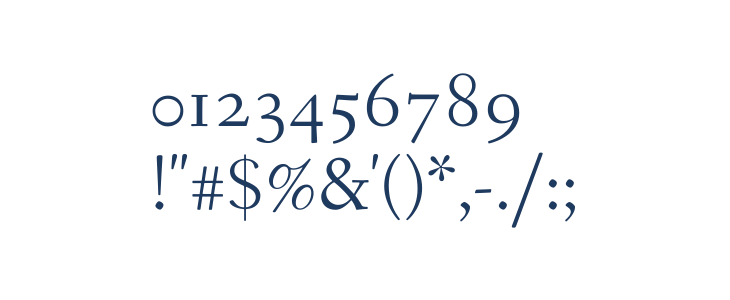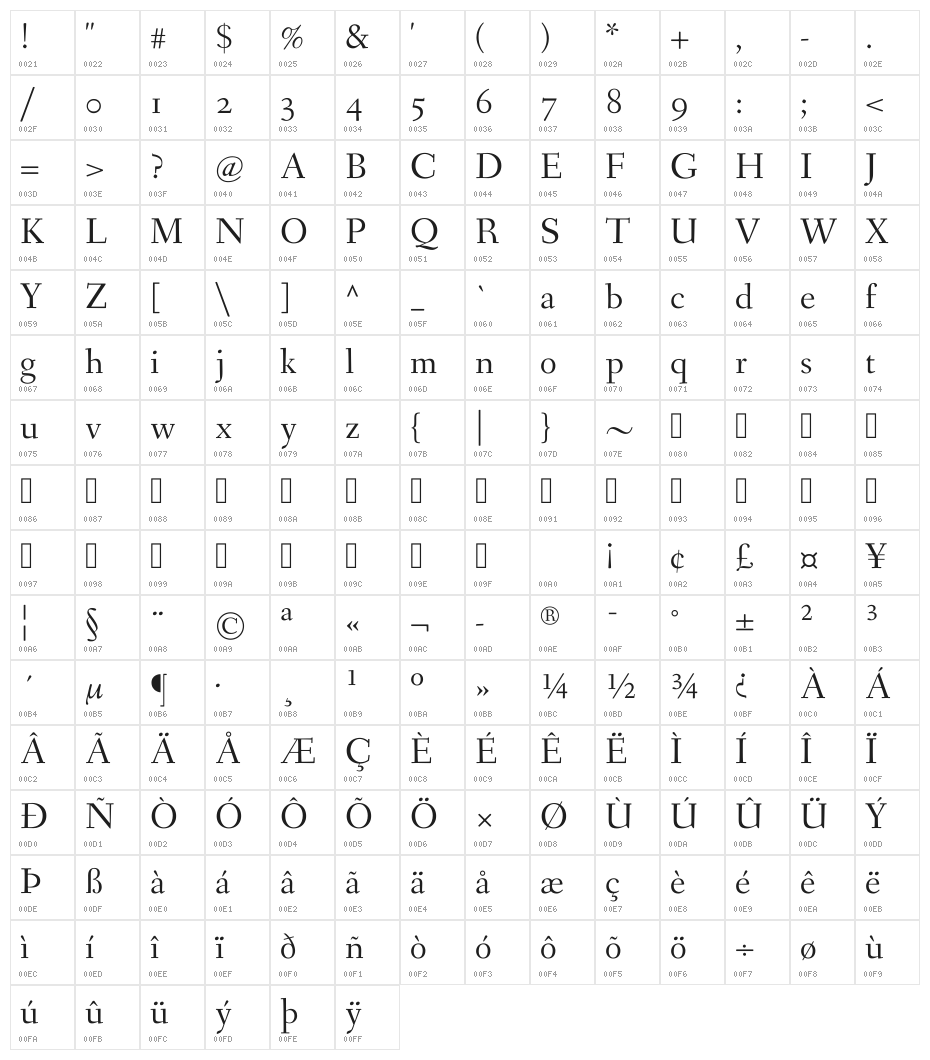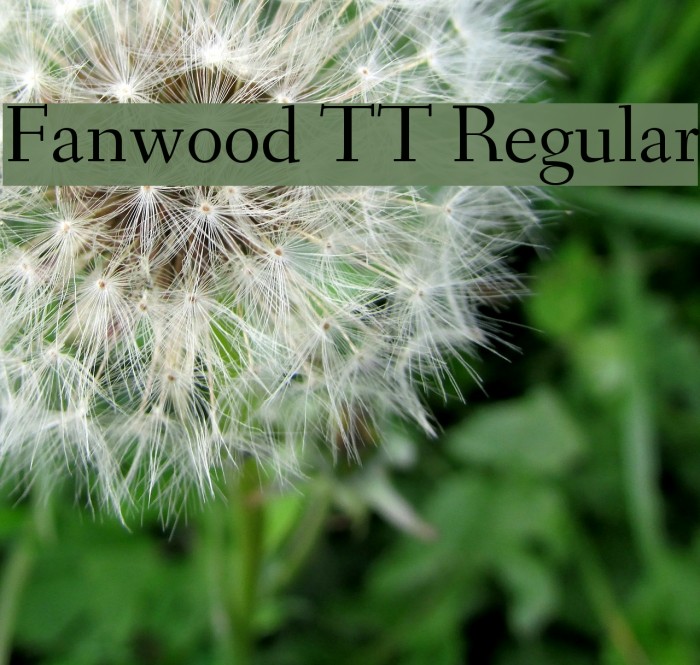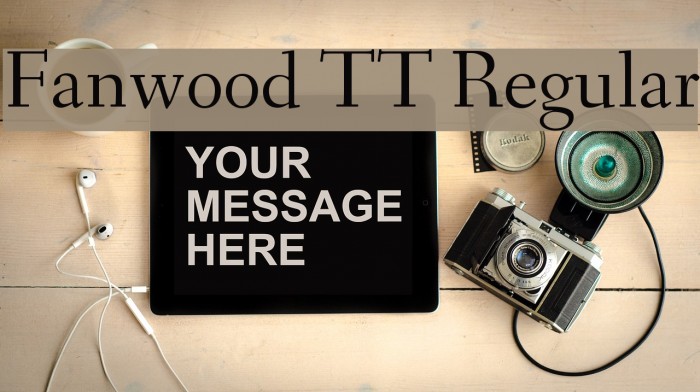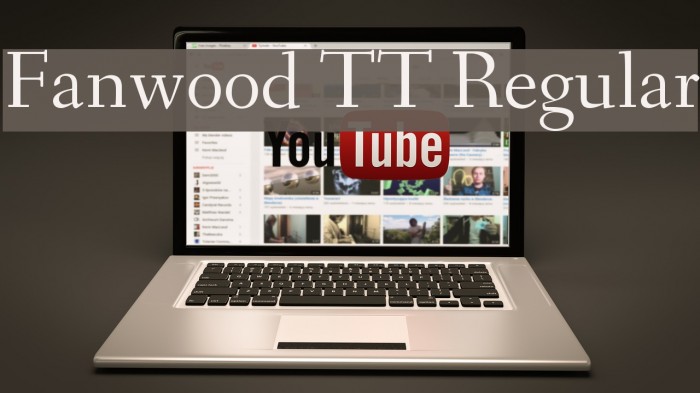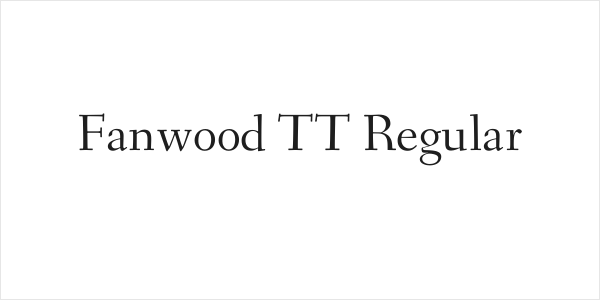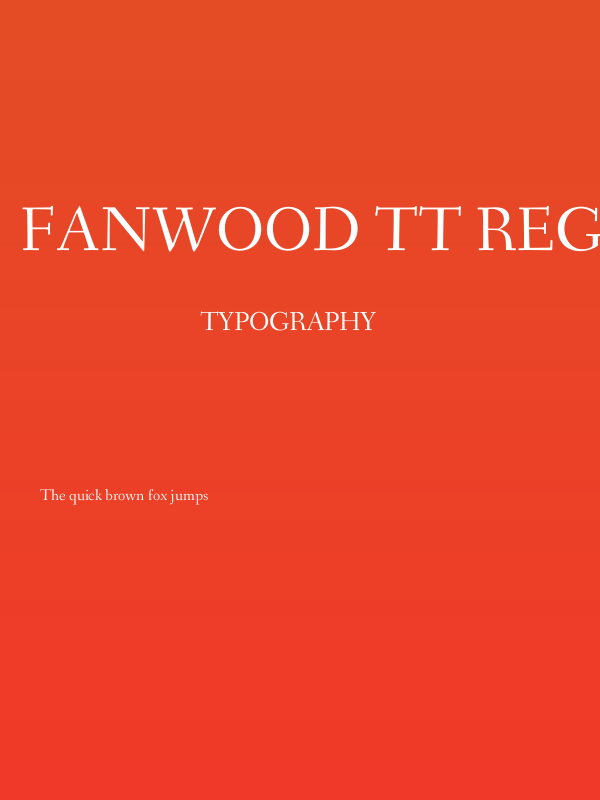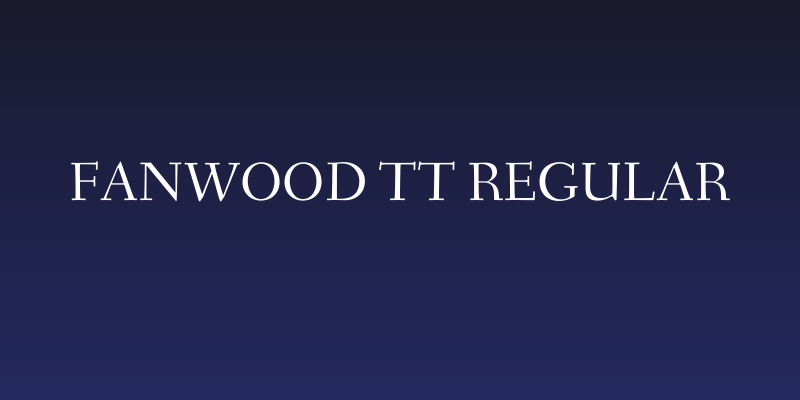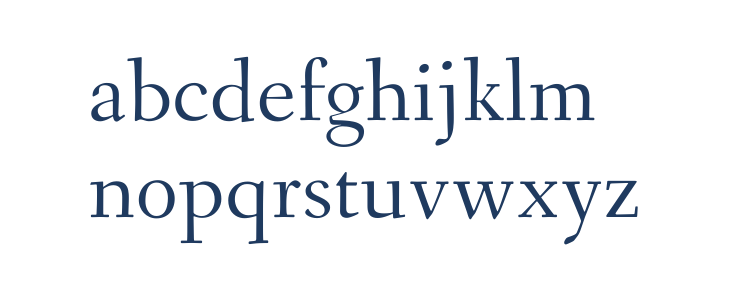
Fanwood TT Regular Font
Fanwood TT Regular Description
This font exhibits a classic serif style with elegant and refined strokes. The characters are well-proportioned, featuring distinct serifs that enhance readability and add a touch of sophistication. The uppercase letters are bold and commanding, while the lowercase letters maintain a graceful flow. Numerals are clear and balanced, making them suitable for both text and display purposes. The special characters are thoughtfully designed, ensuring consistency across the typeface. Overall, this font combines traditional elements with a modern sensibility, making it versatile for various design applications.
| Proposed Projects | Ideal for editorial design, book covers, formal invitations, and branding projects that require a touch of elegance. |